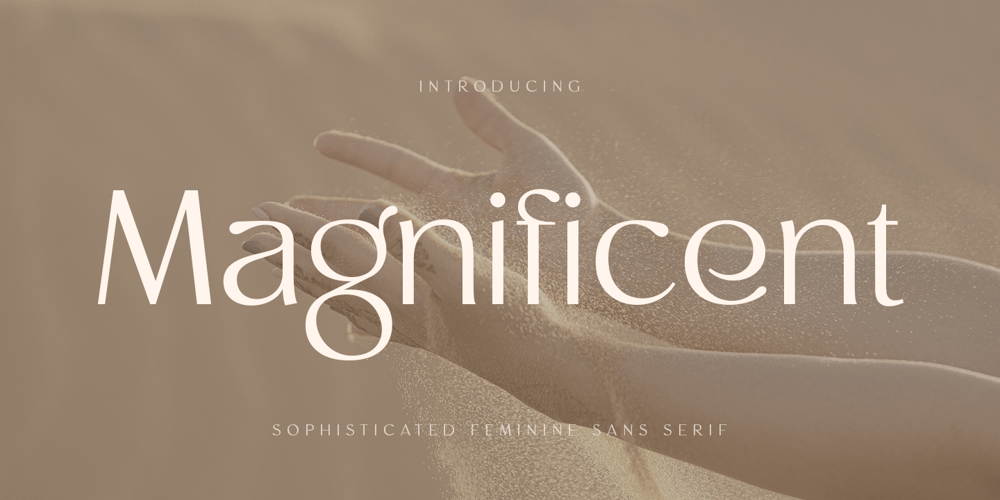
Magnificent SS Font Family was designed by Zamroni Hamzah and published by Sensatype Studio. Magnificent SS contains 1 styles and family package options. Magnificent is A Modern Feminine Vintage FontMagnificent font is a feminine retro modern vintage font with a fancy, playful, unique, and versatile vintage sans serif that you can combine to get a beautiful typography. It is a Sans Serif font with moderate contrast that perfect for branding projects, logo, wedding designs, social media posts, advertisements, product packaging, product designs, label, photography, watermark, invitation, stationery, and any projects, it makes with a high level of legibility.What’s Included: Character set A-Z Uppercase & Lowercase Numerals & Punctuation Accented Characters (West Europe) Works on PC & Mac Wish you enjoy our font. ๐